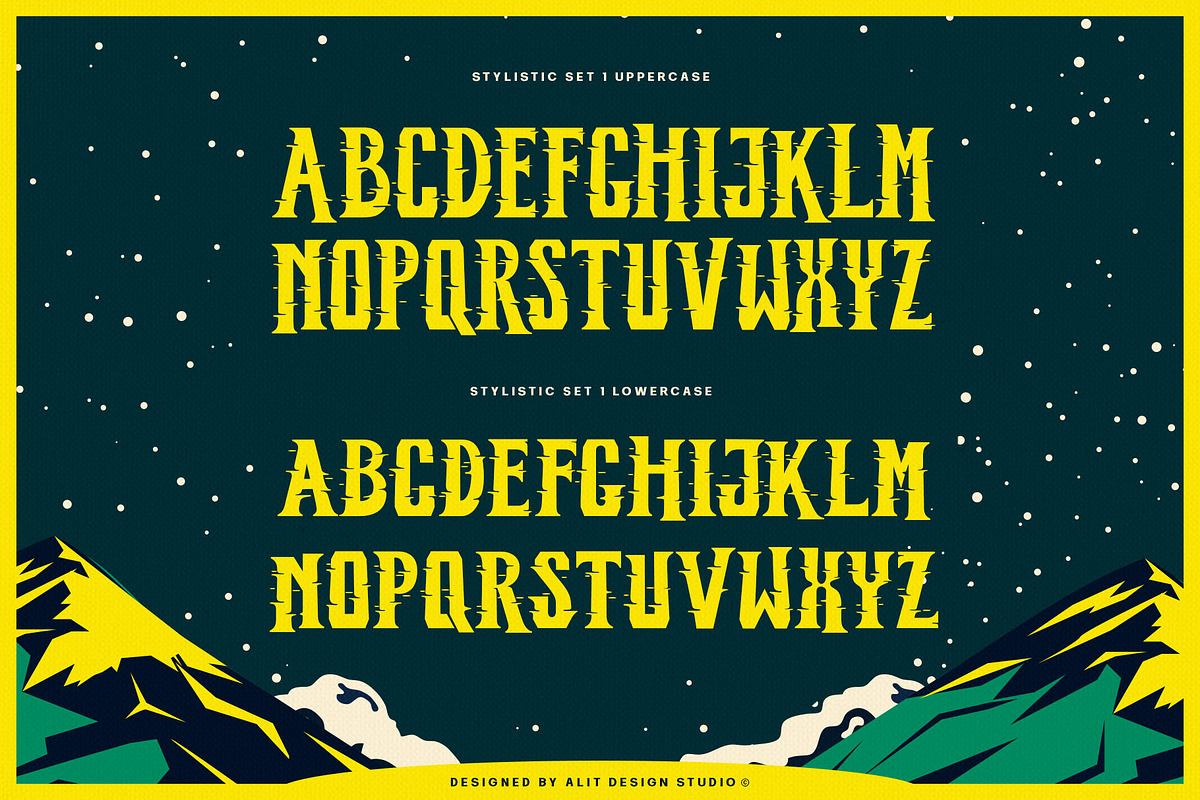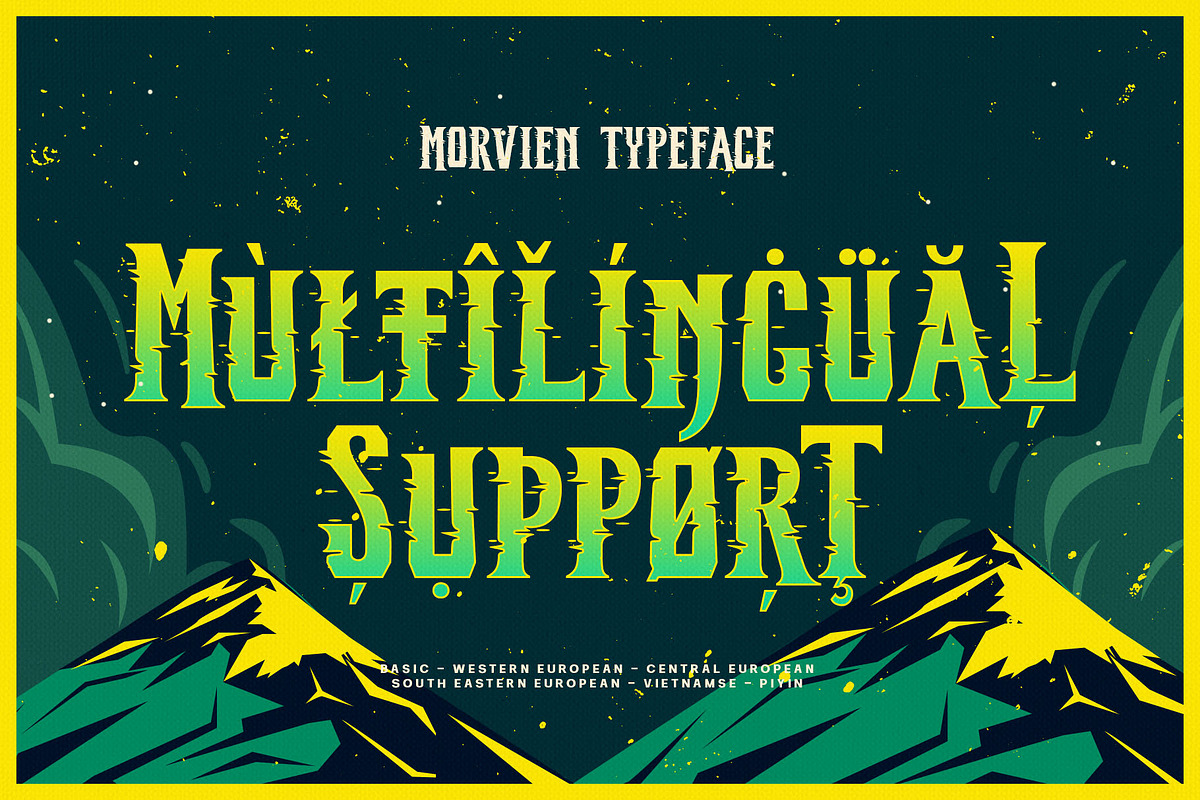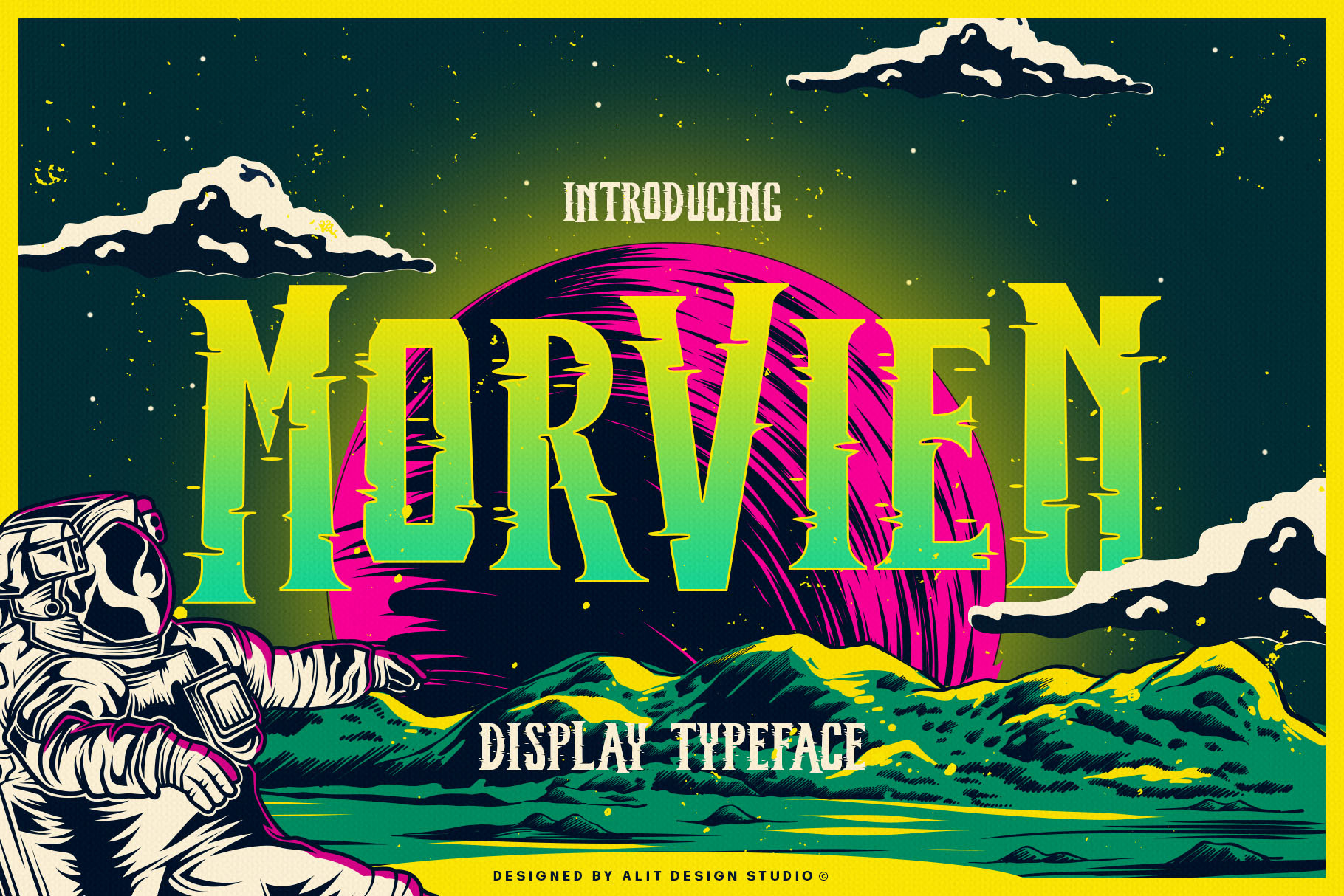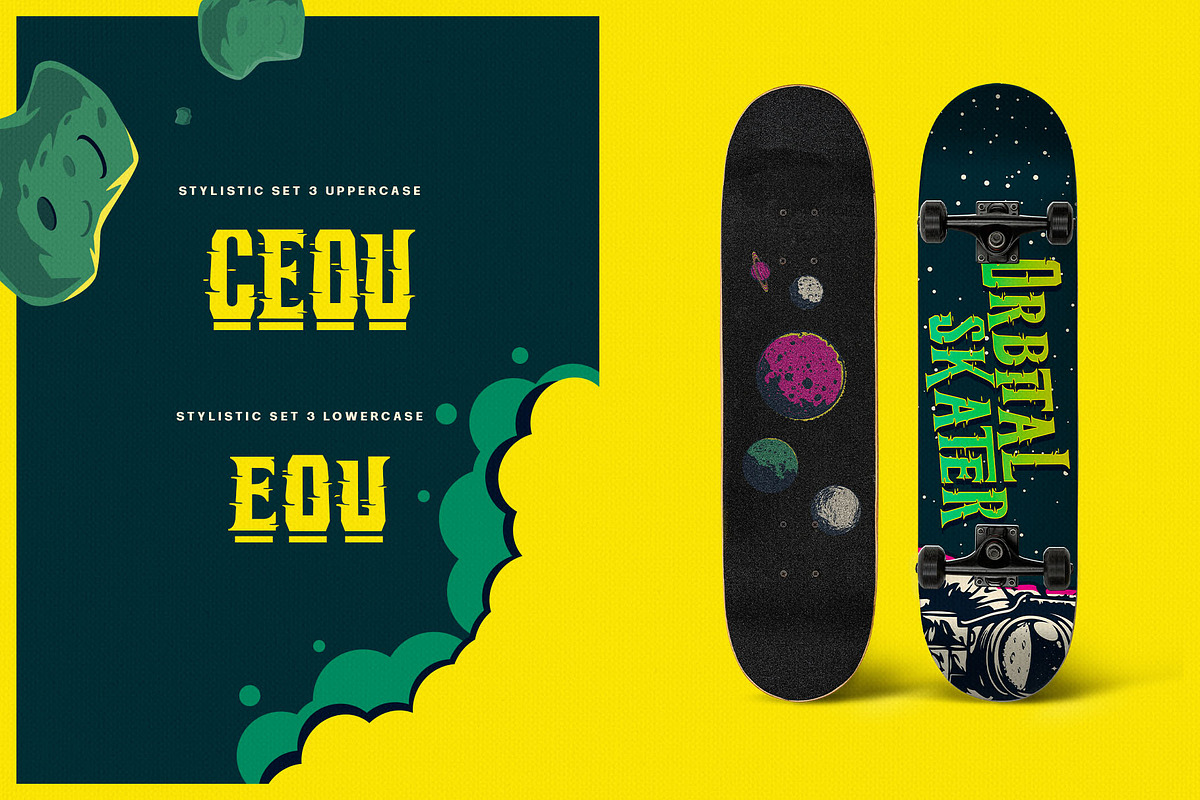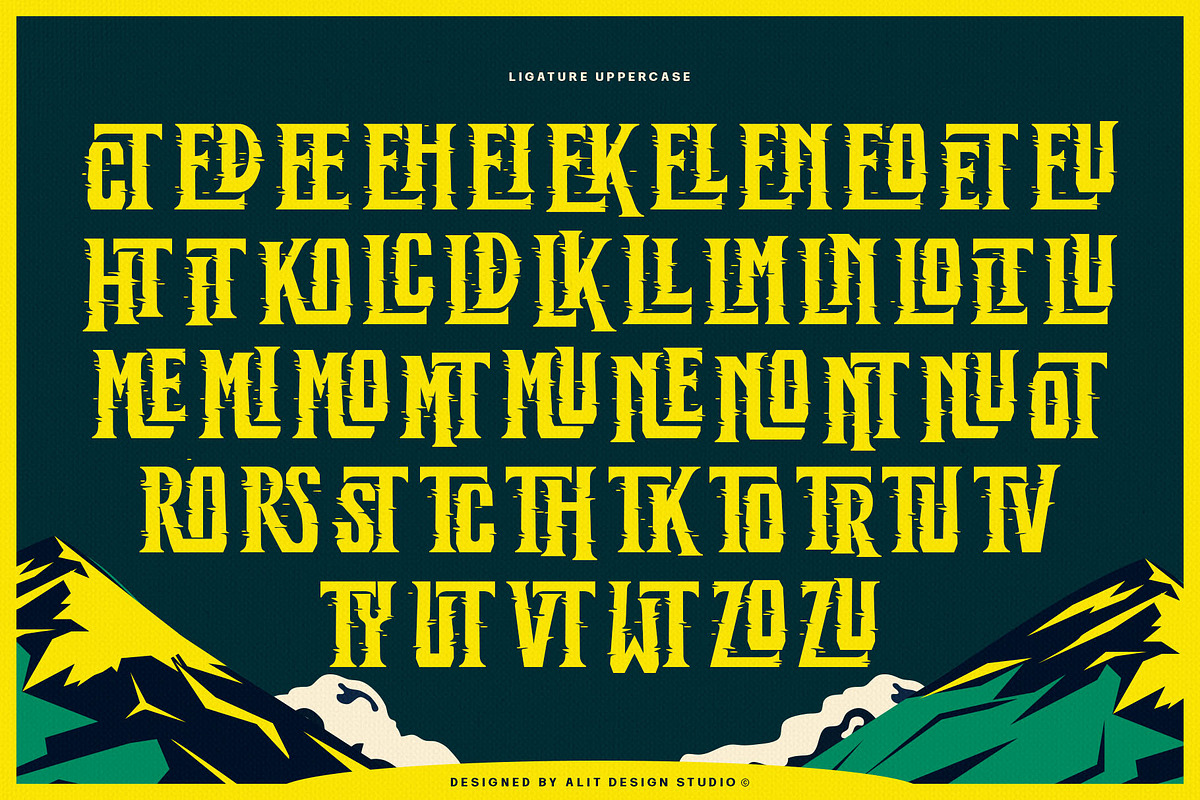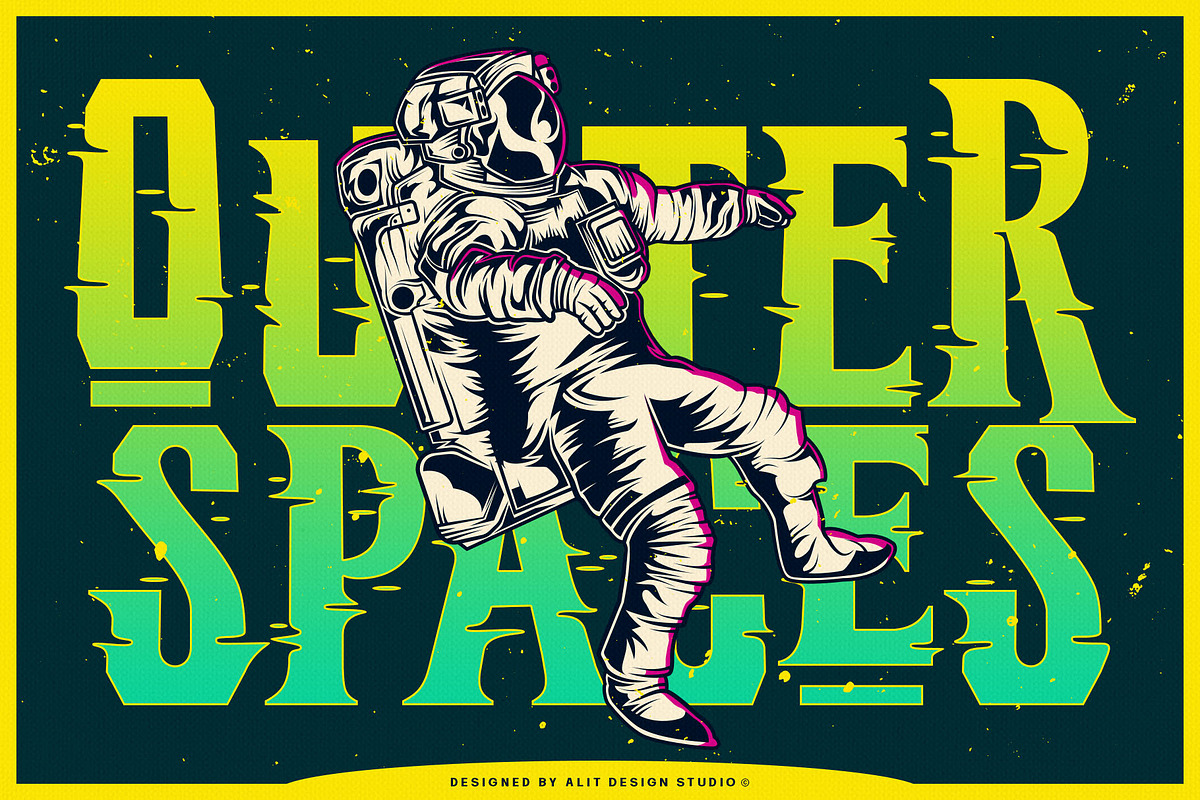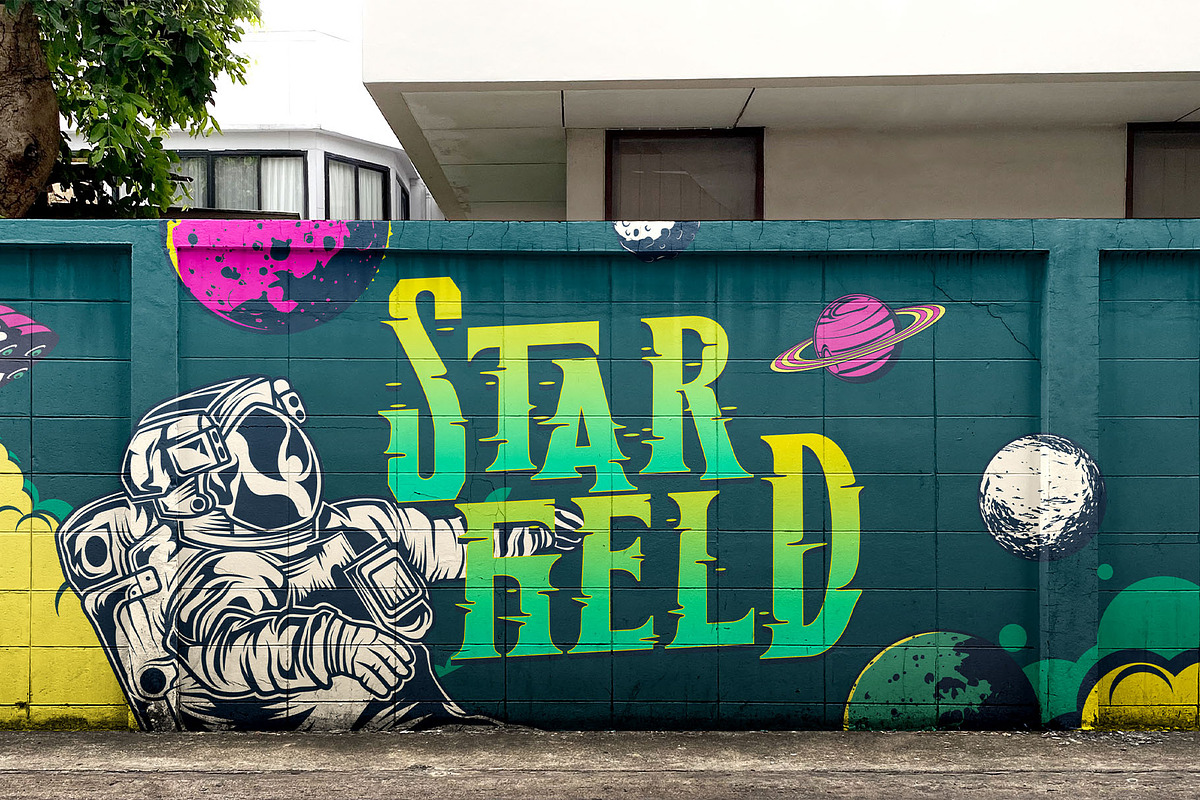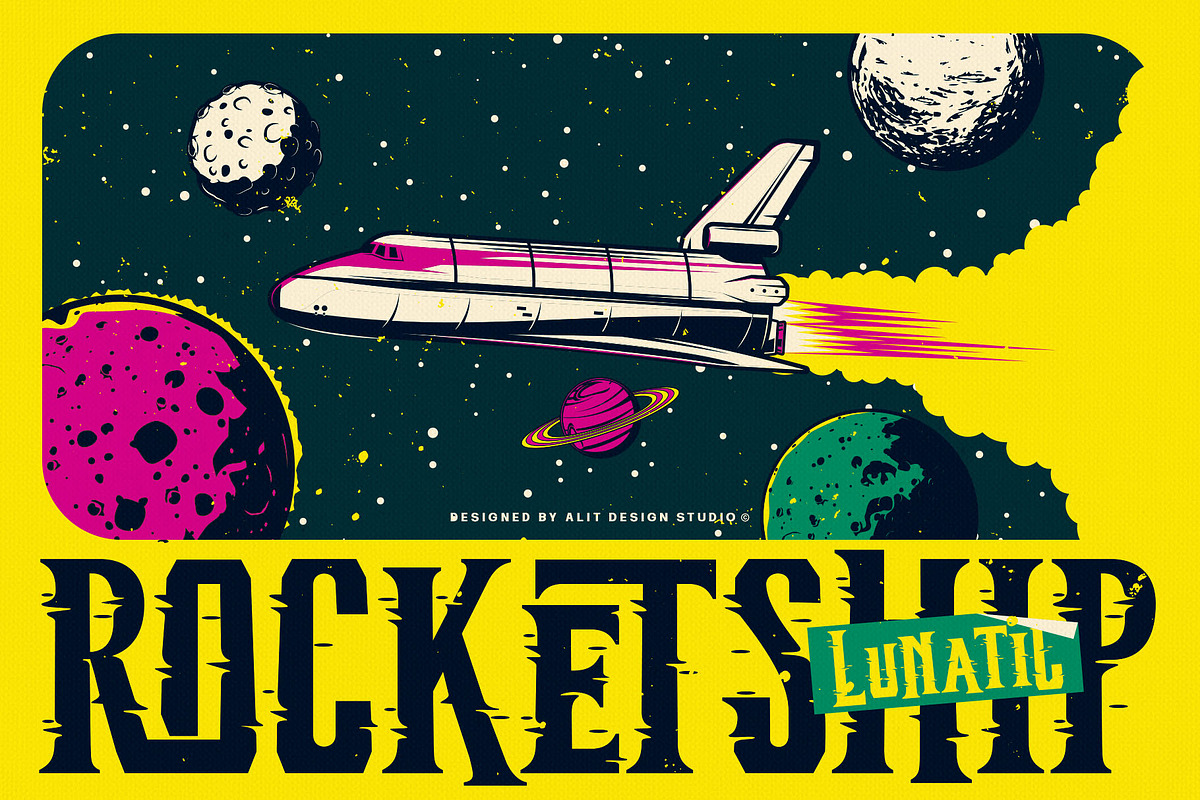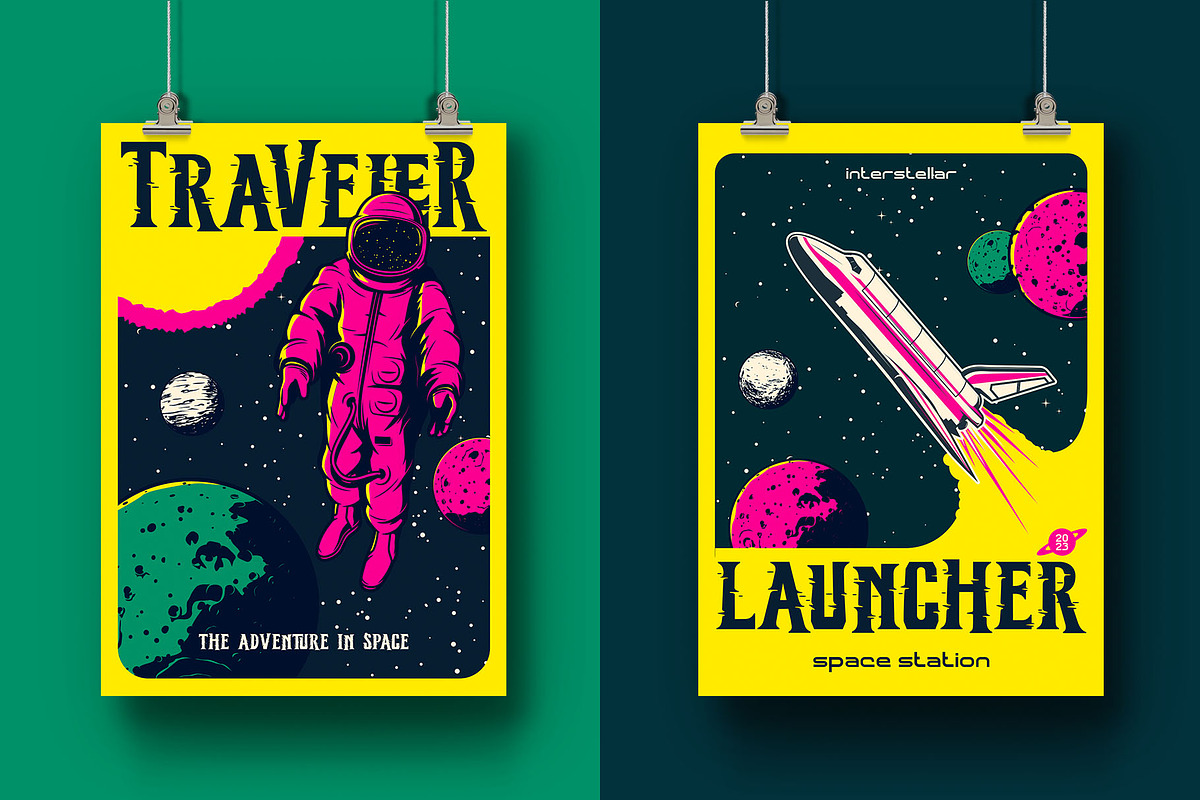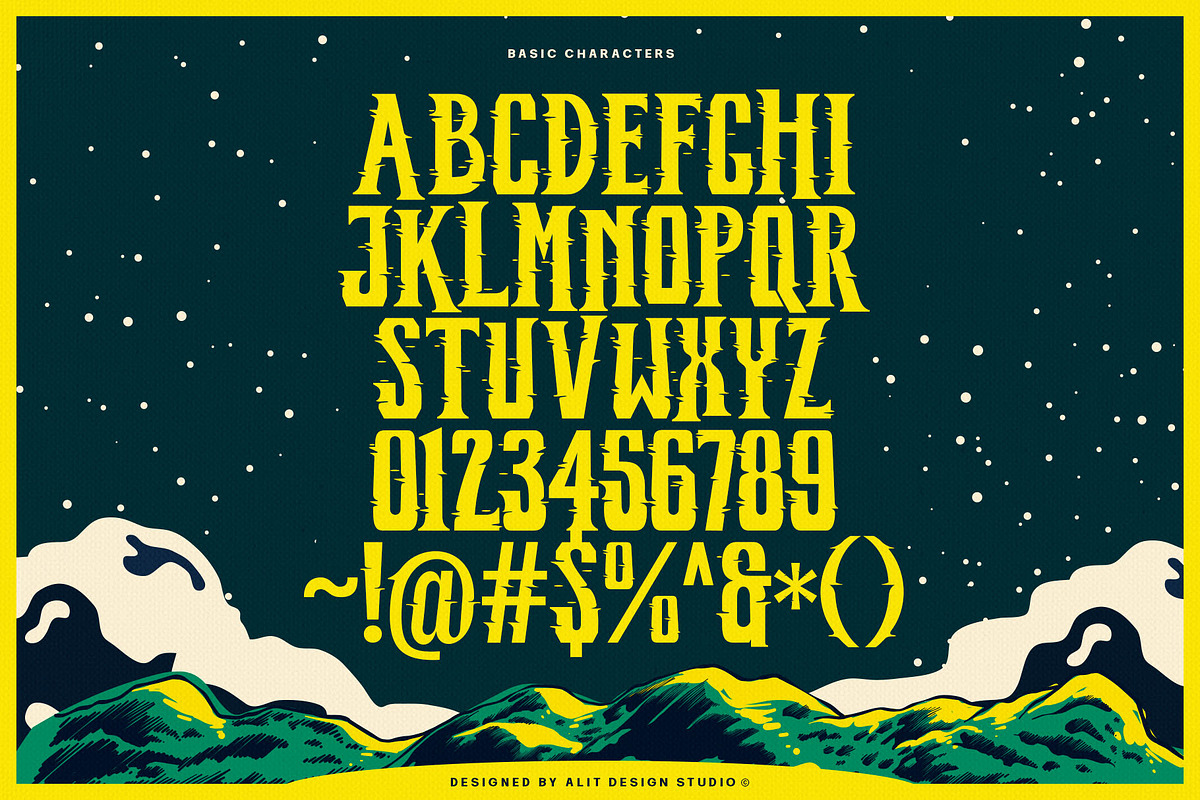
Morvien Typeface
Introducing Morvien Typeface - a bold and dynamic display font that brings a unique edge to your creative projects. With its distinctive torn shapes and powerful design, Morvien Typeface is the perfect choice for film titles, game interfaces, comic book lettering, superhero themes, and music posters. This font is not just a typeface; it's an artistic statement that adds a touch of drama and excitement to your visual creations.
Torn Shapes Design: Morvien Typeface stands out with its edgy and torn shapes, giving your text a rebellious and energetic vibe. Each character is carefully crafted to convey a sense of dynamism and movement.
Display Style: Morvien Typeface is designed specifically for display purposes, ensuring that your headlines and titles command attention. The bold and impactful strokes make it ideal for creating a strong visual impact.
Ligatures and Alternatives: Morvien Typeface includes a rich set of ligatures and alternative characters, providing you with creative flexibility. Experiment with different combinations to customize your text and make it uniquely yours.
633 Characters: Morvien Typeface boasts an extensive character set with 633 characters, offering a wide range of options for your design needs. Whether you're working on a detailed project or a quick creative piece, Morvien Typeface has you covered.
Multilingual Support: Morvien Typeface is crafted with global compatibility in mind, supporting multiple languages. Now you can express your creativity in various linguistic contexts without compromising on style.
Versatile Usage: Morvien Typeface is well-suited for a variety of creative projects, including film titles, game interfaces, comic book lettering, superhero-themed designs, and music posters. Its versatility makes it a go-to choice for projects that demand a bold and expressive typographic style.
Elevate your design projects with Morvien Typeface and let your text speak with intensity. Embrace the torn shapes, explore ligatures, and make a lasting impression with this powerful and versatile display font. Your creativity knows no bounds with Morvien!